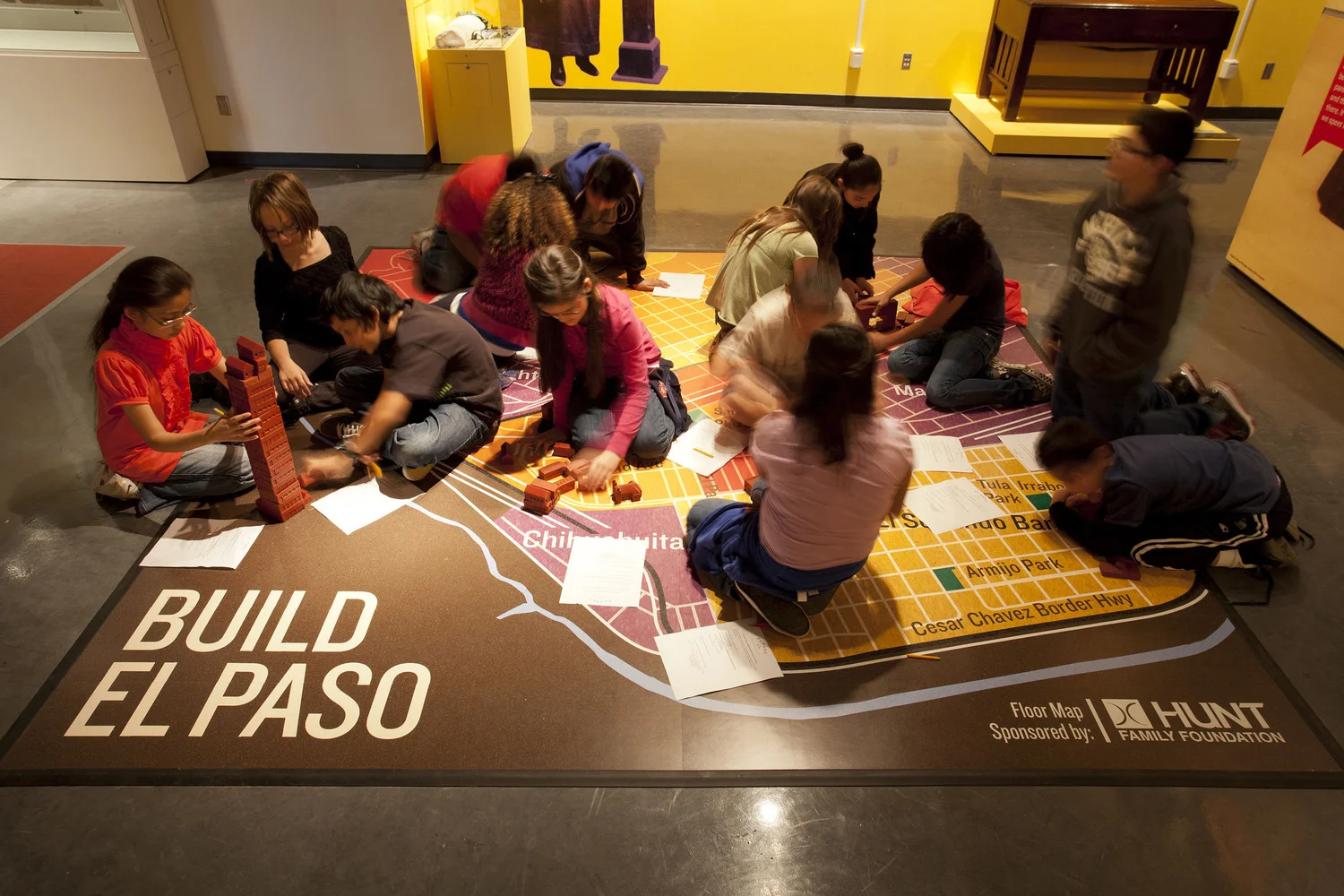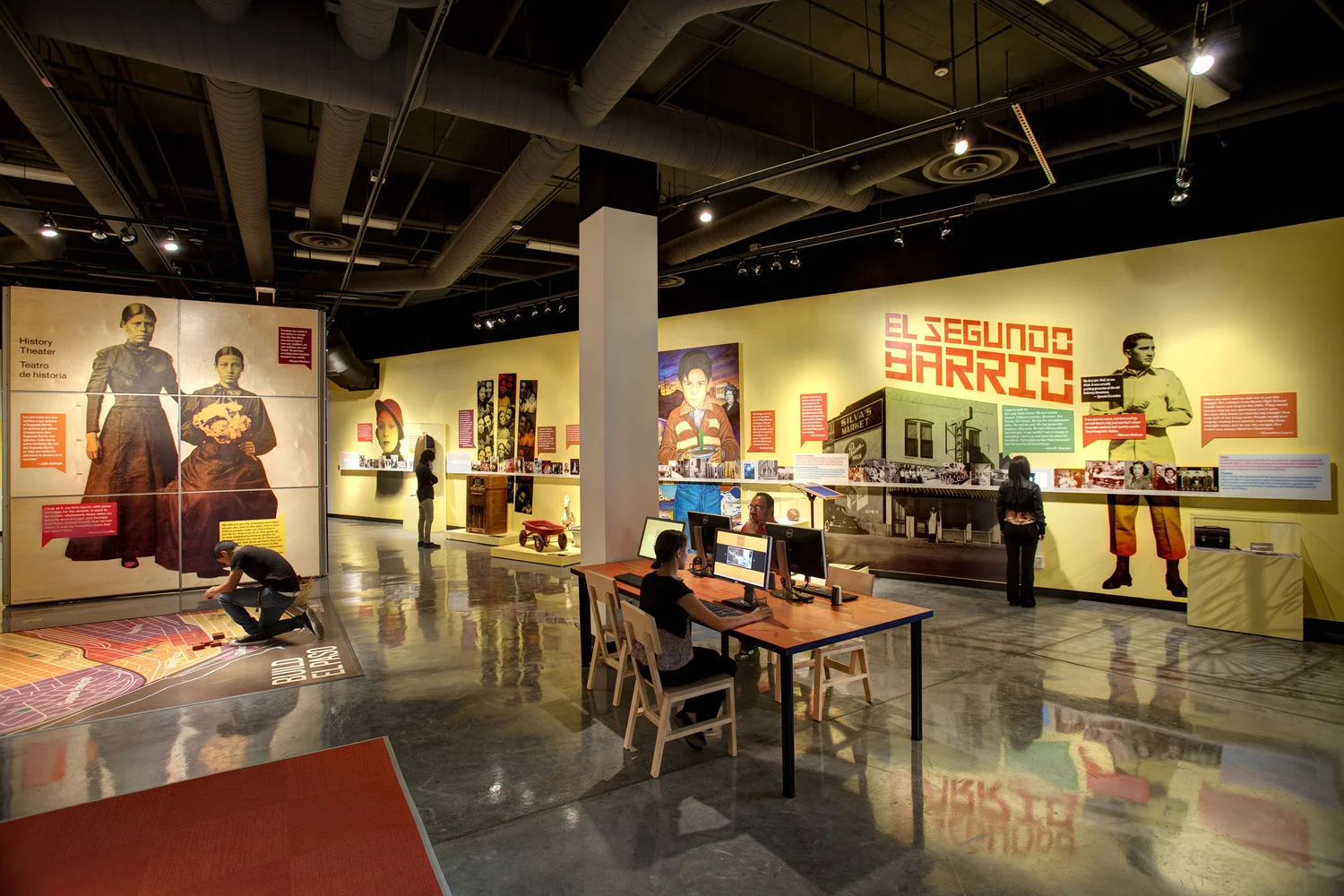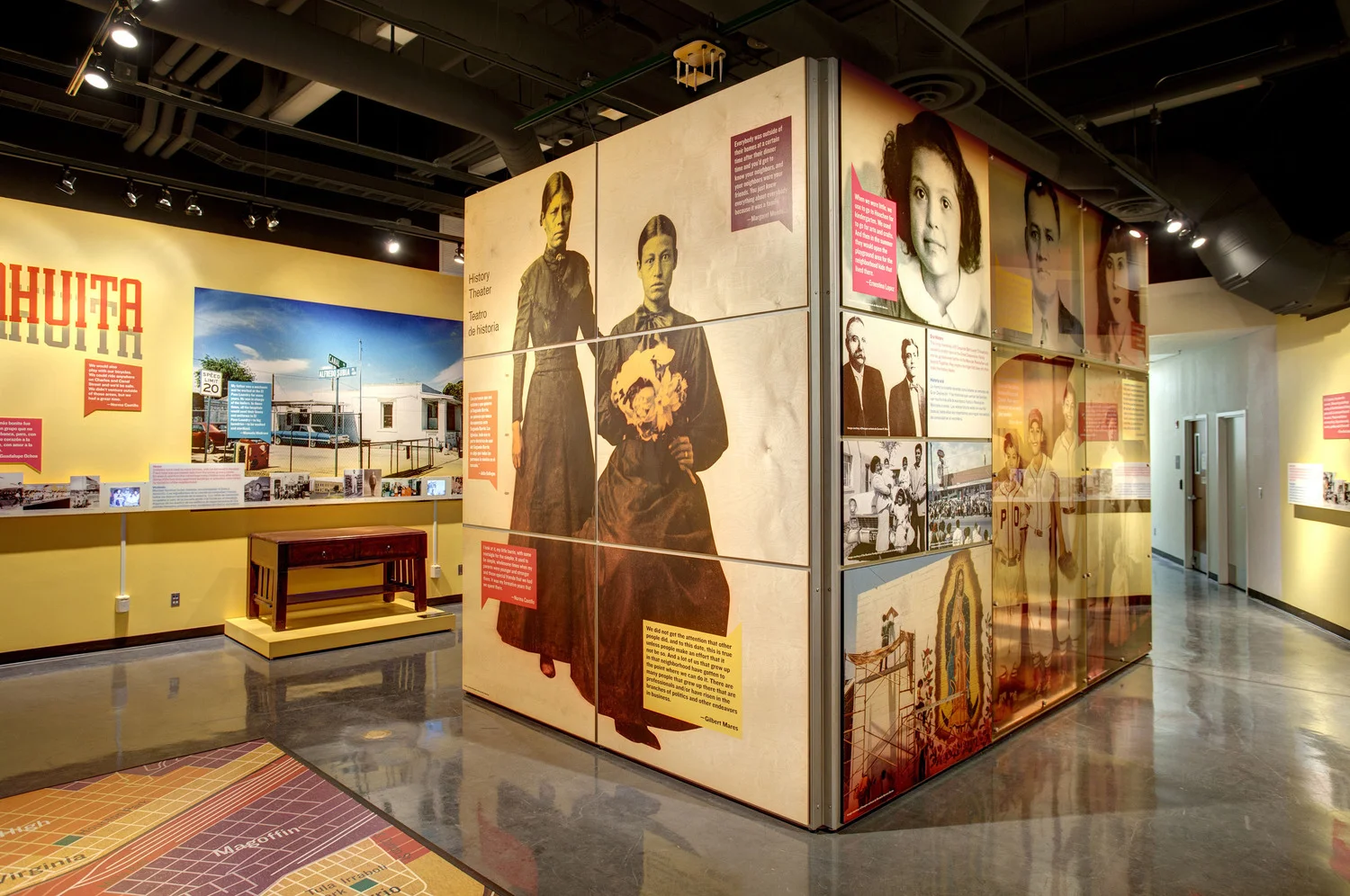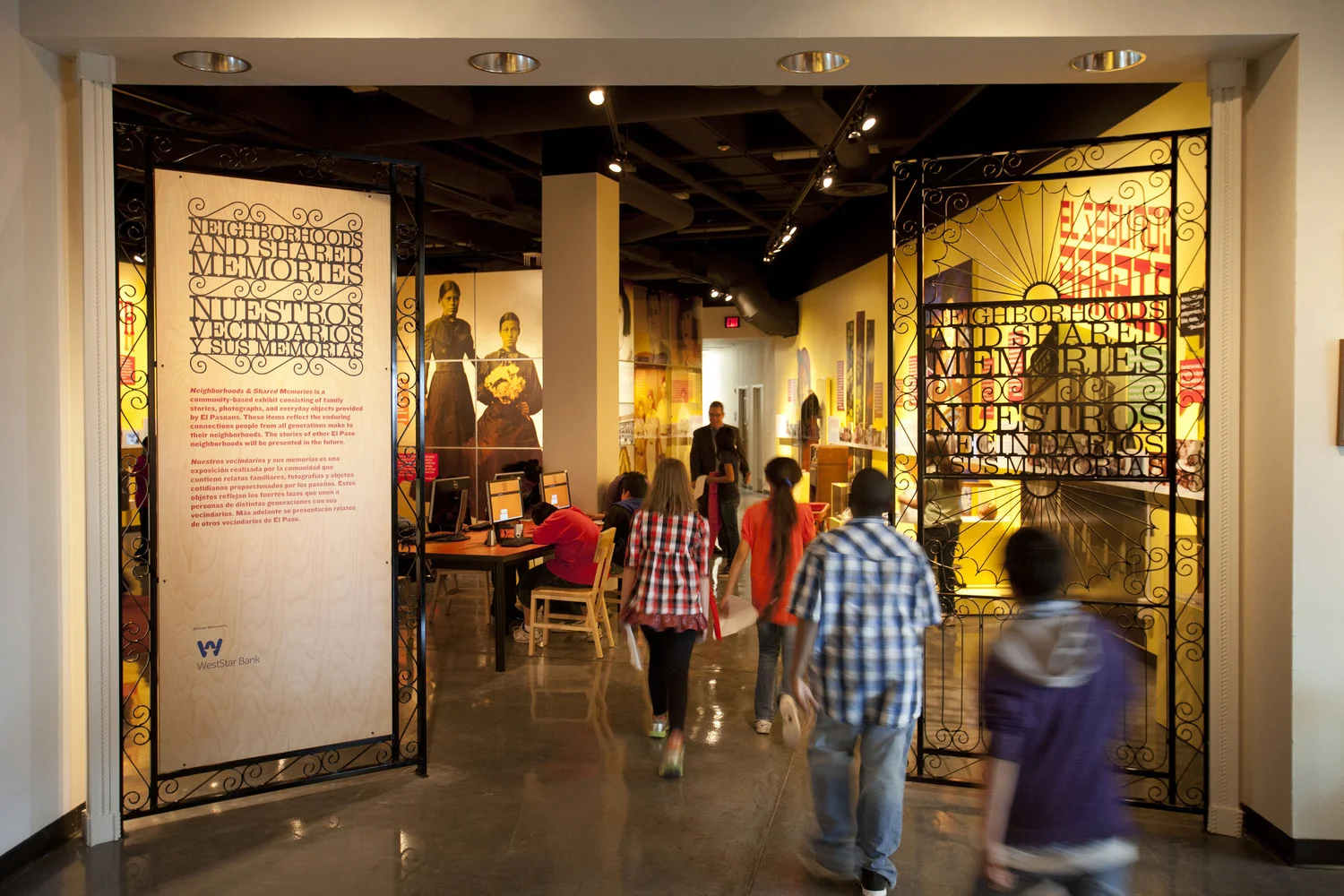
El Paso Museum of History
“Neighborhoods and Shared Memories” (Nuestros vecindarios y sus memorias)
Art Direction + Lettering: Jessica Griscti
Lettering based on local artisinal styles.
Build El Paso
Children's Play Map
The Phases of El Paso
Short interactive animation based on the evolution of El Paso.